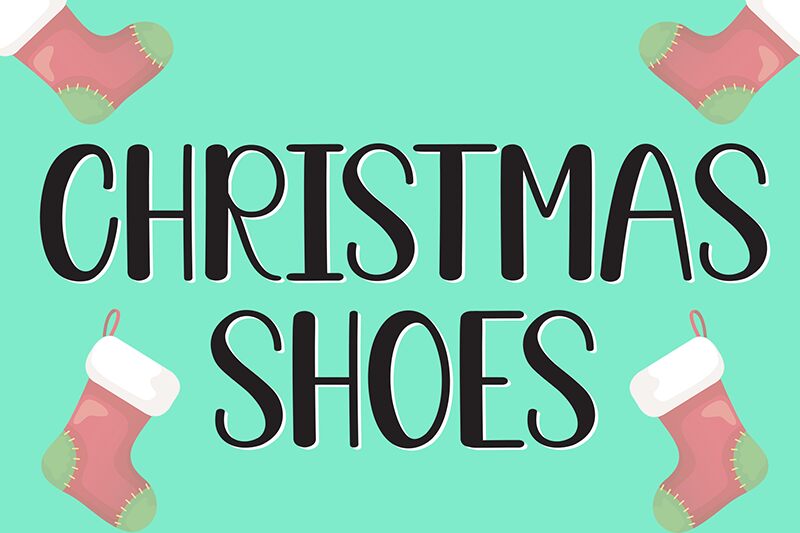
Christmas Shoes
Christmas Shoes font is a free handwritten font by Scratchones with decorative details and elegant appearance. The modern feel with a dash of retro influence makes it the perfect addition to branding projects, covers, and apparel designs. Use this exceptional quality item in magazines or explore unconventional applications.
Applicable use cases include invitations, greeting cards, posters, stickers, stationery items, typography logos and badges.